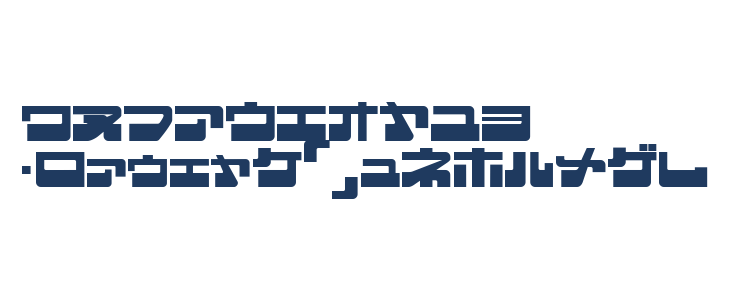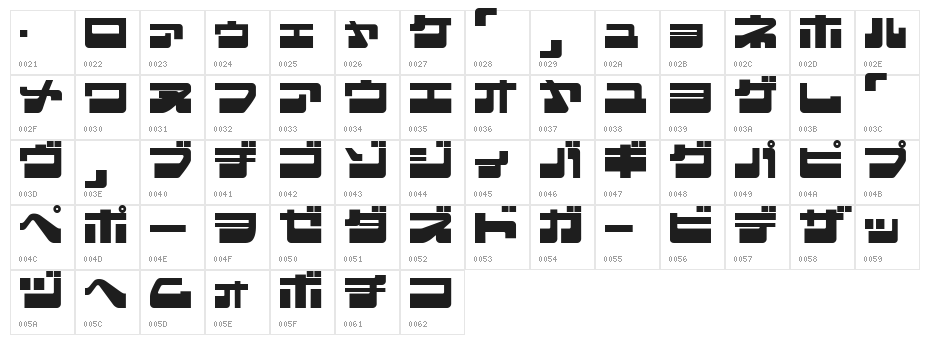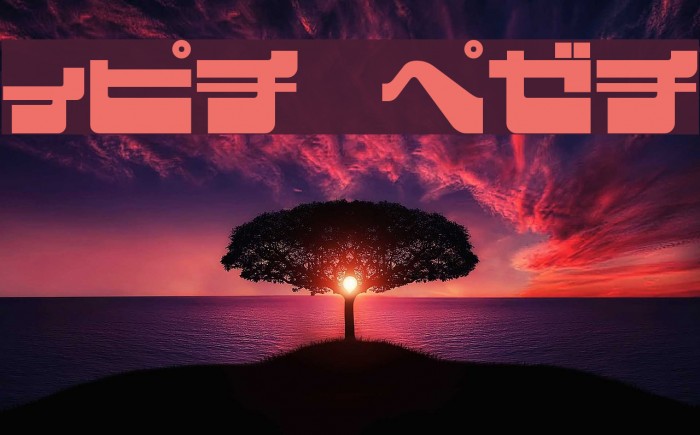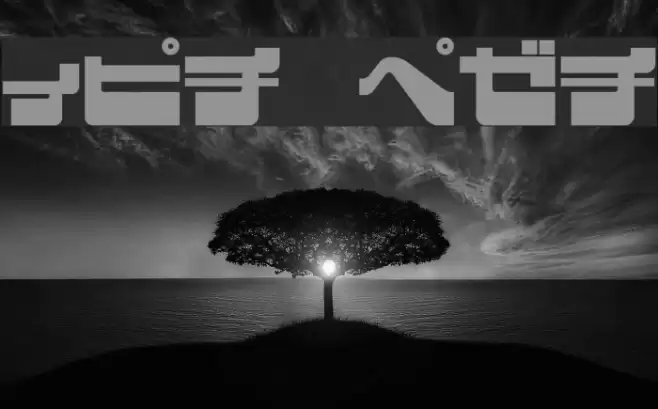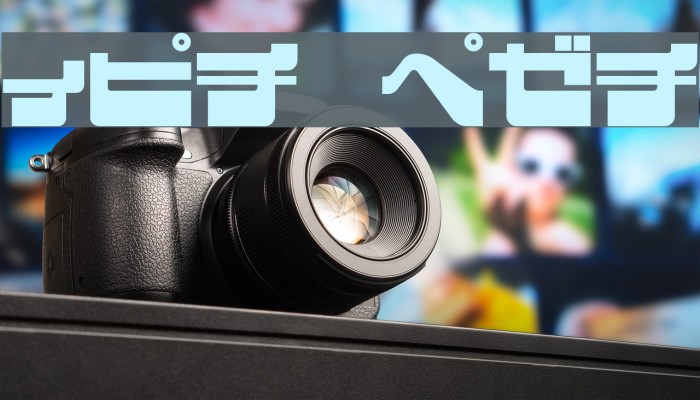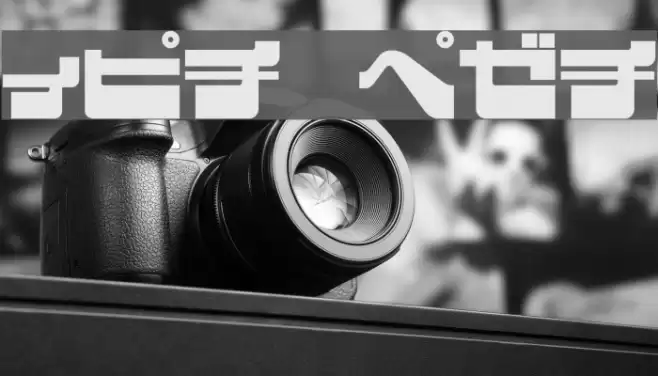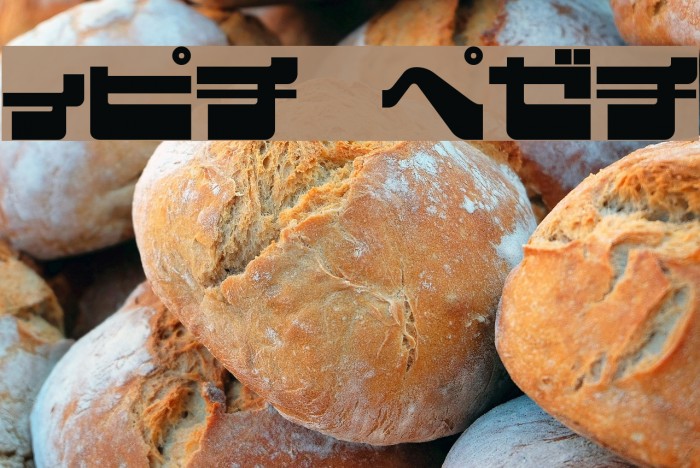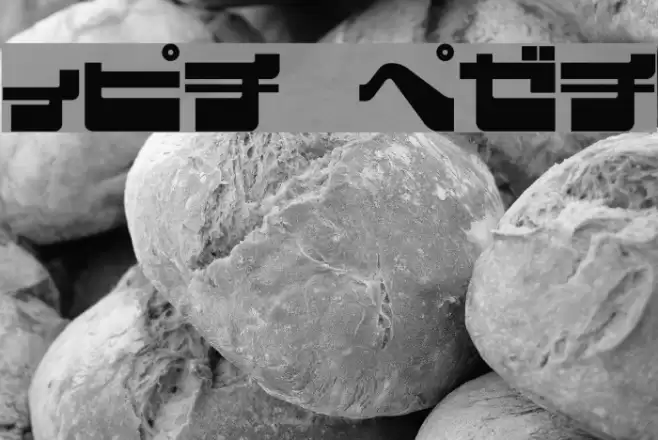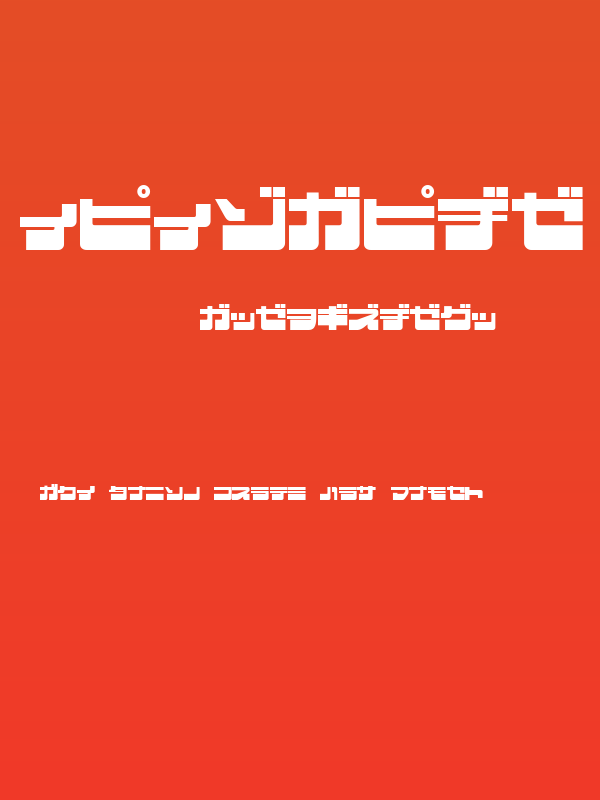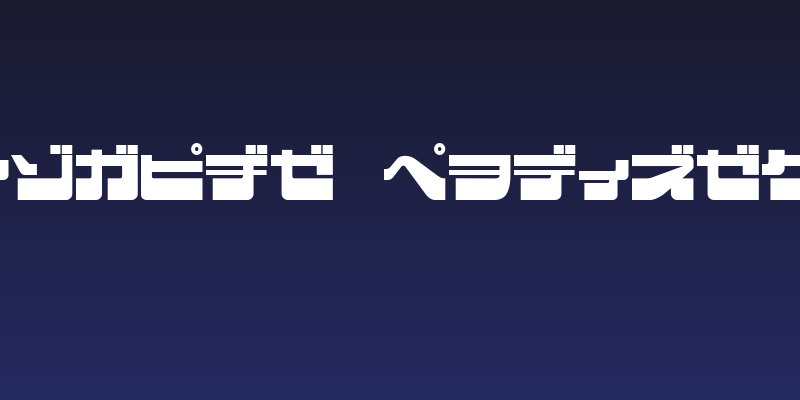
EjectJap LowerPhat Font
EjectJap LowerPhat Description
This font features a bold and futuristic design with a distinctly geometric and blocky appearance. The characters are uniformly thick, creating a strong visual impact. The style is reminiscent of digital or sci-fi themes, with sharp angles and a consistent stroke width throughout. The uppercase and lowercase letters maintain a cohesive look, while the numerals and special characters complement the overall aesthetic. This font is ideal for projects that require a modern and edgy feel, such as technology-related branding or video game titles.
| Proposed Projects | Ideal for technology branding, sci-fi book covers, video game titles, and digital media. |